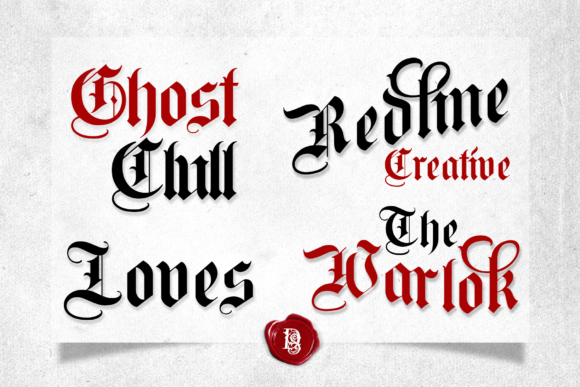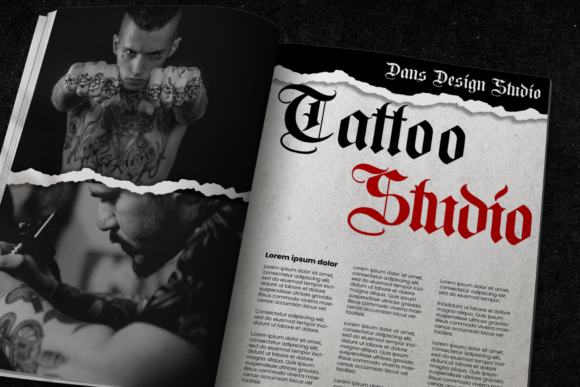
Brightos Font
Brightos is a solemn and modern blackletter font that looks unique and stylish. It’s a great option for projects that need interesting typography such as logos, branding, business cards, product packaging, and many others!